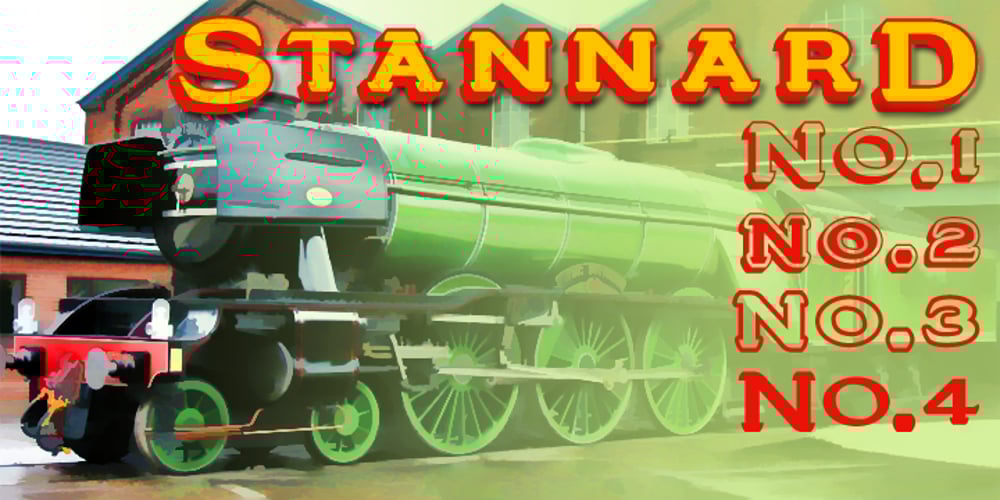
Stannard
Stannard font
Stannard Font Family was designed by Paul James Lloyd and published by Greater Albion Typefounders. Stannard contains 4 styles and family package options. Stannard speaks to us of the happy days of the inter-war period, of enamel advertising ‘street-jewelry’ as seen on the railways and in all the best shops, of youngsters’ train set boxes and toy catalogues, of traditional magazine mastheads, of a simpler, happier and just maybe better era, when summers lasted for ever and all was well with the world. It’s a great family of faces for use in nostalic poster design, for nostalgic packaging design or signage or book covers, or even just for making a bold statement anywhere. Four decorative faces are offered.